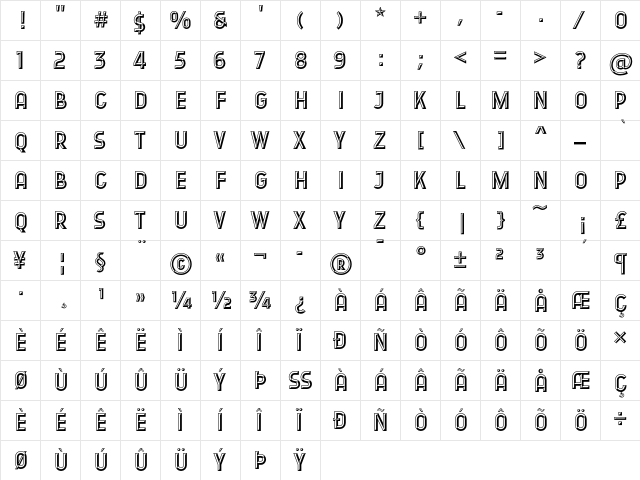
Romeo D Regular
Design Context for Romeo D Typeface
Romeo D offers clean, dependable letterforms without strong stylistic allegiance, making it a practical choice for designers who need flexibility.